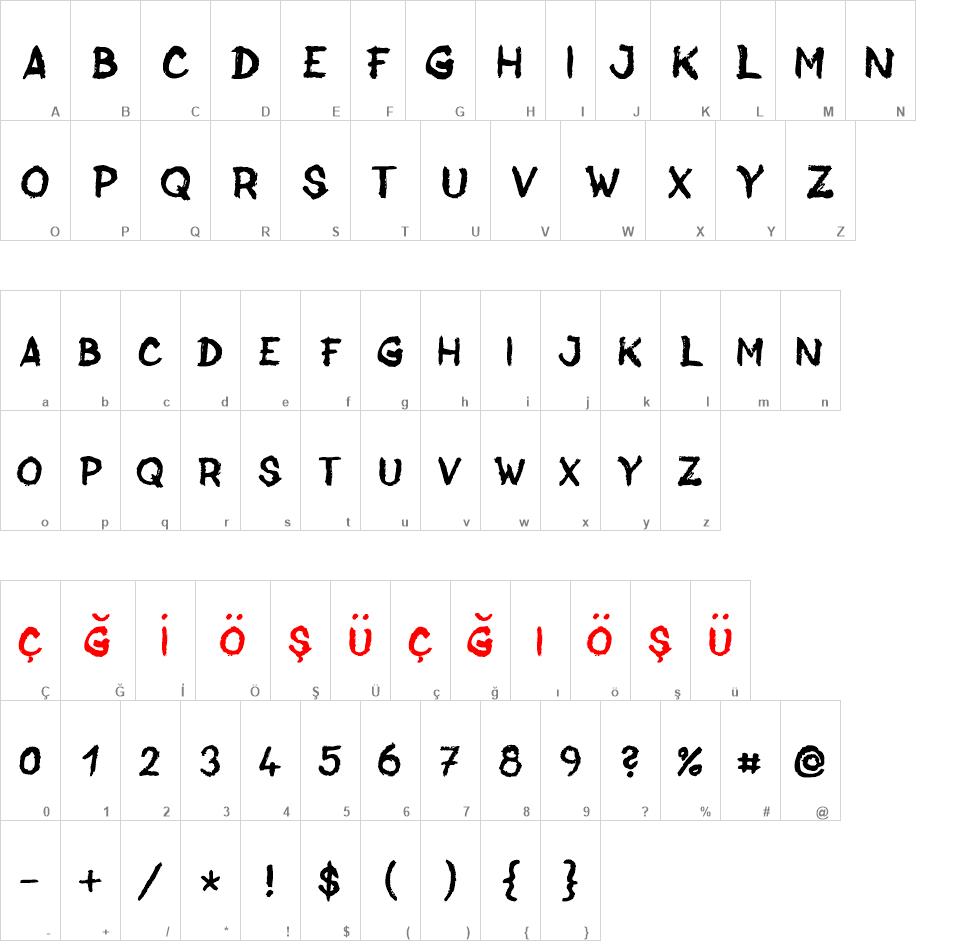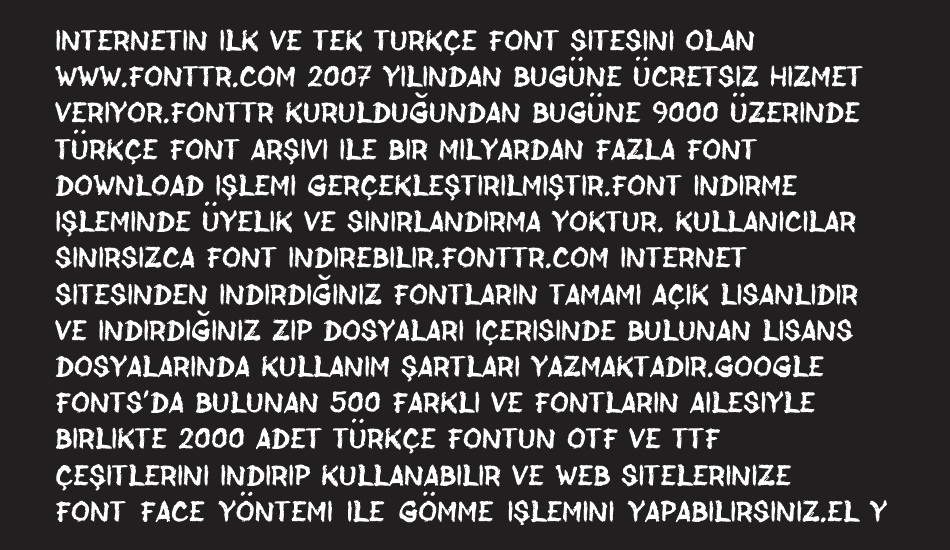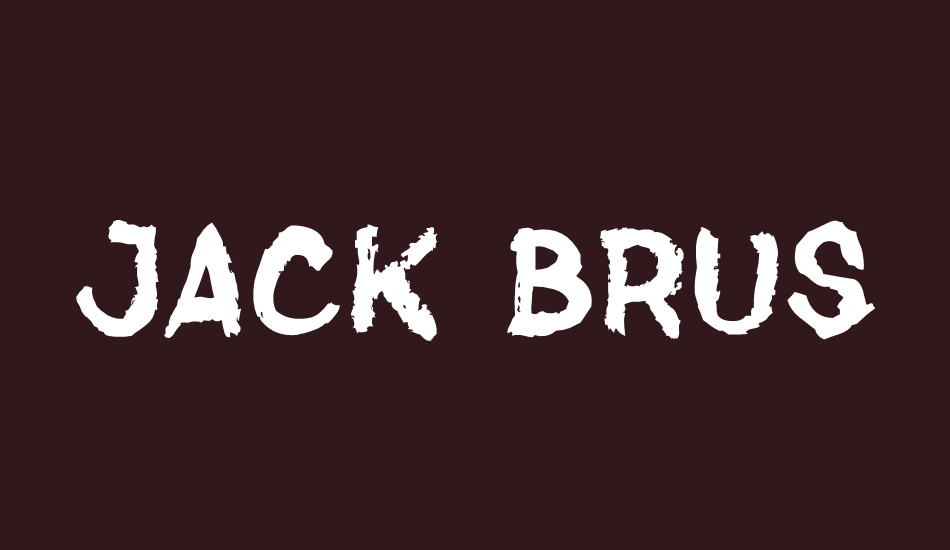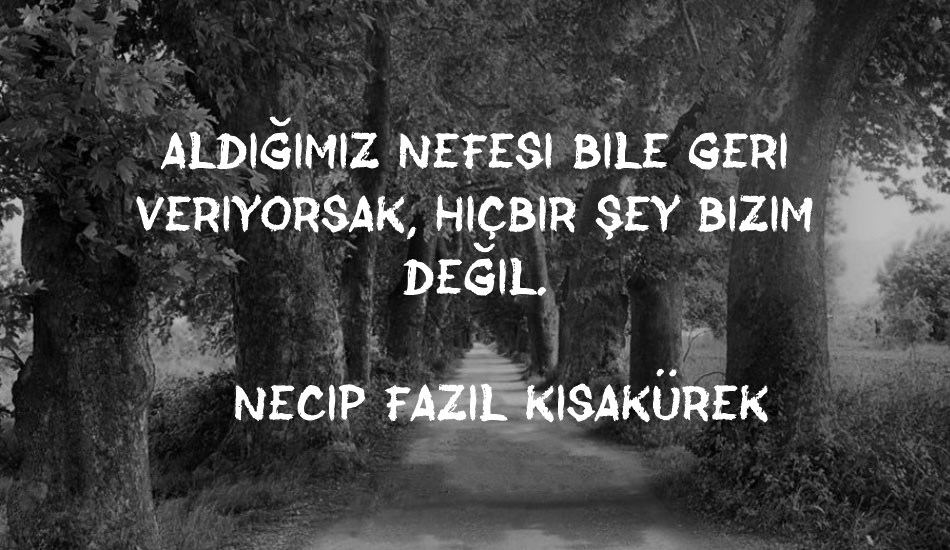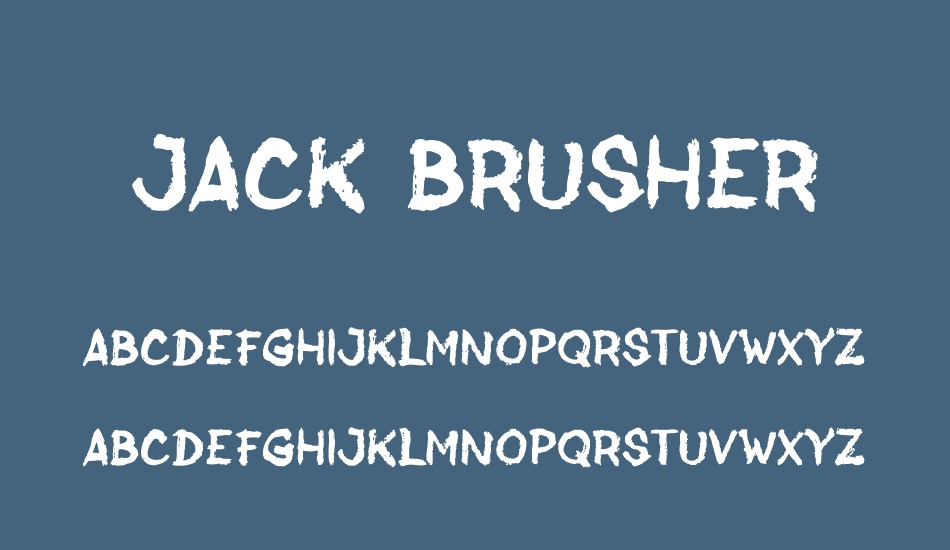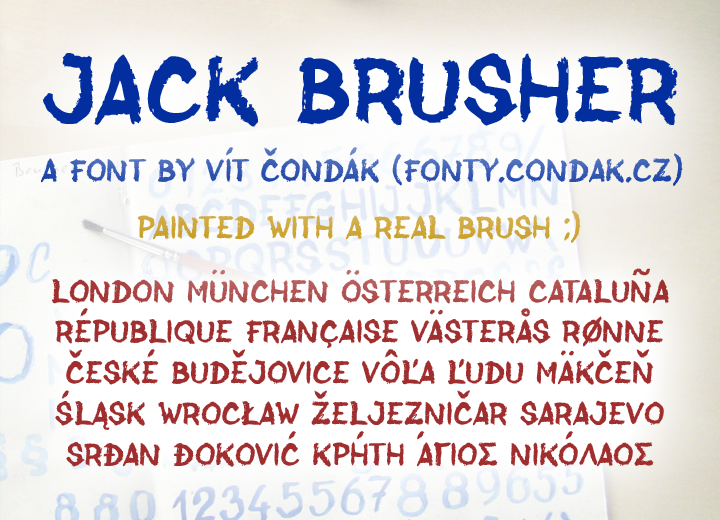
Jack Brusher font
Jack Brusher
by V?t ?ond?k
2015
A rather rough font based on a sketch I made using a brush and watercolors.
Lower case are intentionally the same as upper case.
Hrubozrn? h?lkov? font podle n??rtu, kter? jsem ud?lal ?t?tcem a vodov?mi barvami.
Mal? p?smena jsou z?m?rn? stejn? jako velk?.